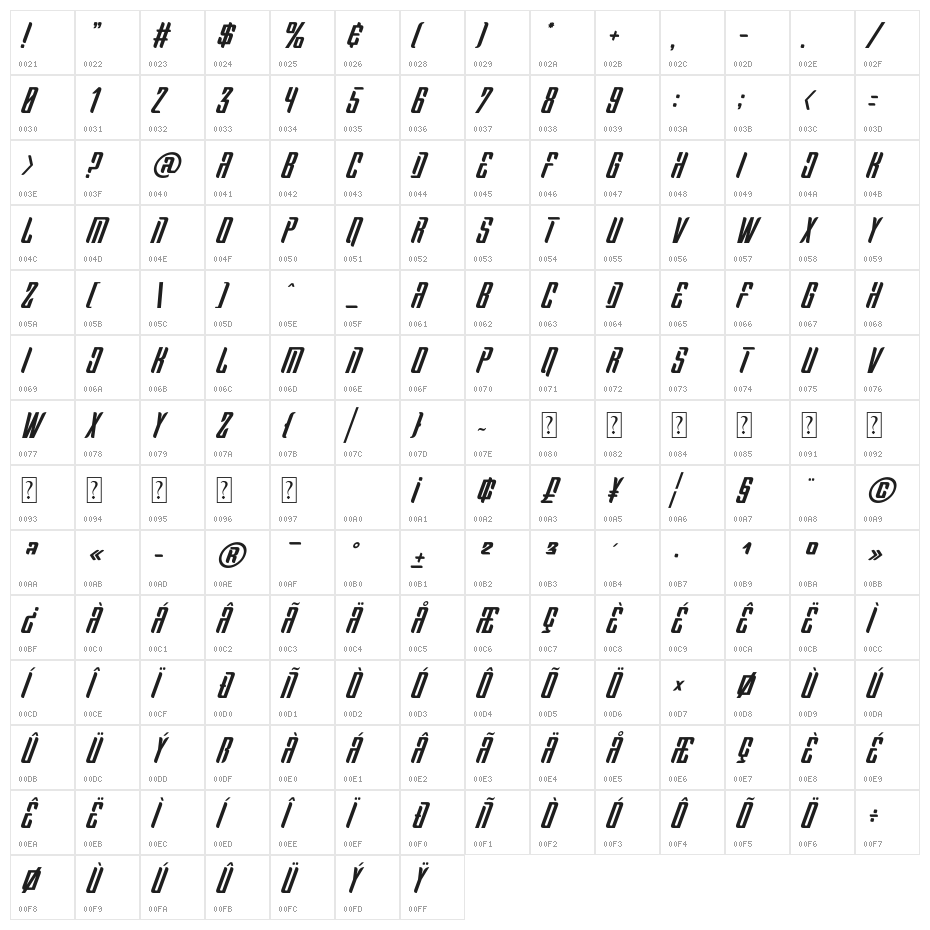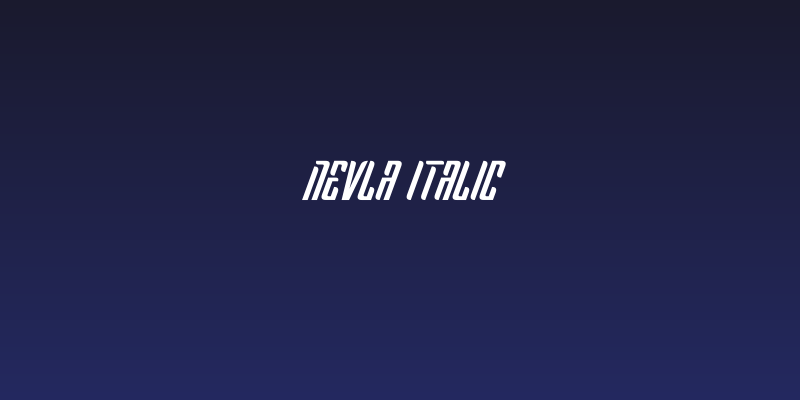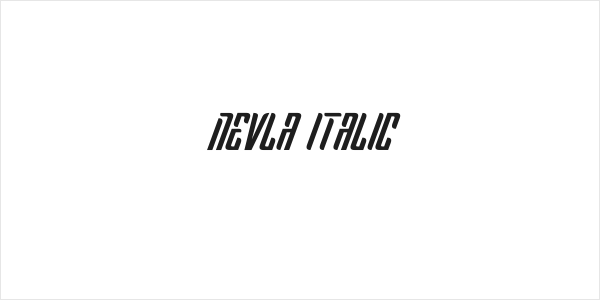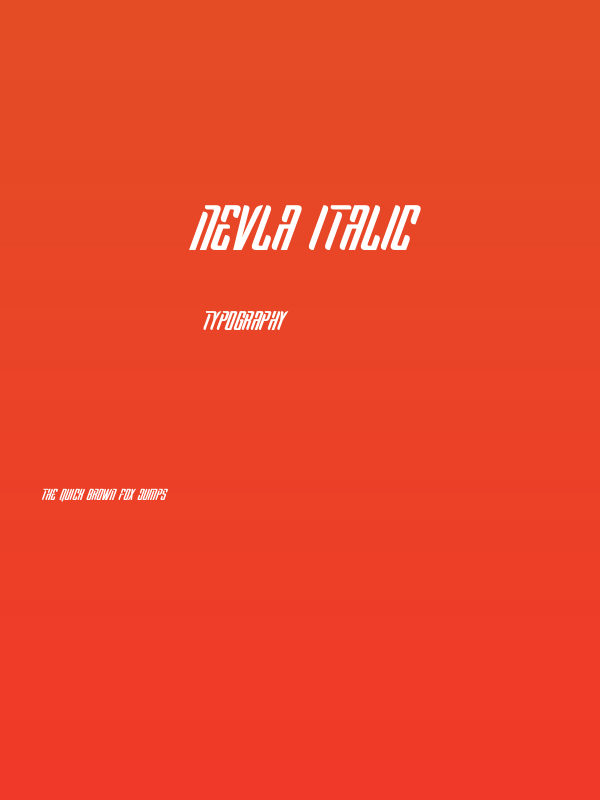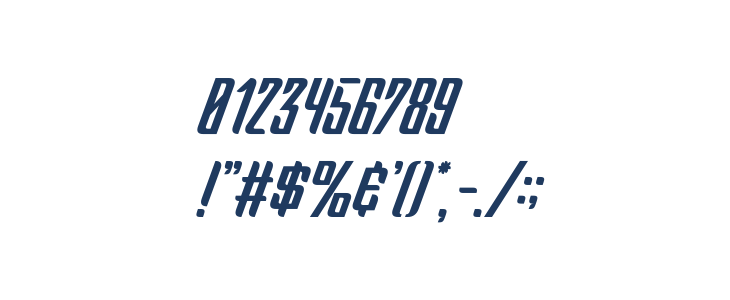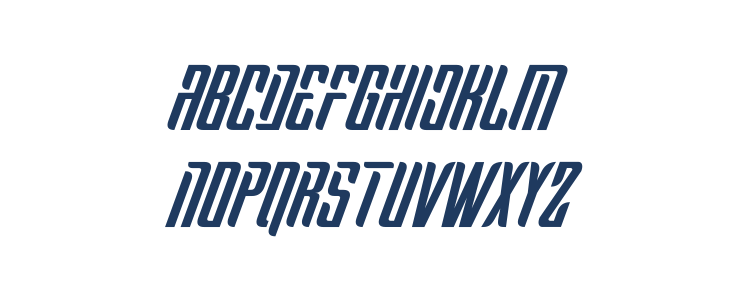
Nevla Italic Font
Nevla Italic Description
This font features a bold, italicized style with a strong geometric influence. The characters are slanted, giving a sense of motion and dynamism. The strokes are thick and consistent, providing a robust and impactful appearance. The uppercase and lowercase letters maintain a uniform width, contributing to a cohesive look. The numbers and special characters are designed to match the overall aesthetic, ensuring visual harmony across all elements. This font's modern and assertive style makes it suitable for attention-grabbing designs.
NEVLA-ITALIC UPPERCASE
NEVLA-ITALIC LOWERCASE
NEVLA-ITALIC OTHER CHARS
| Proposed Projects | Ideal for sports branding, dynamic posters, modern logos, and impactful headlines. |